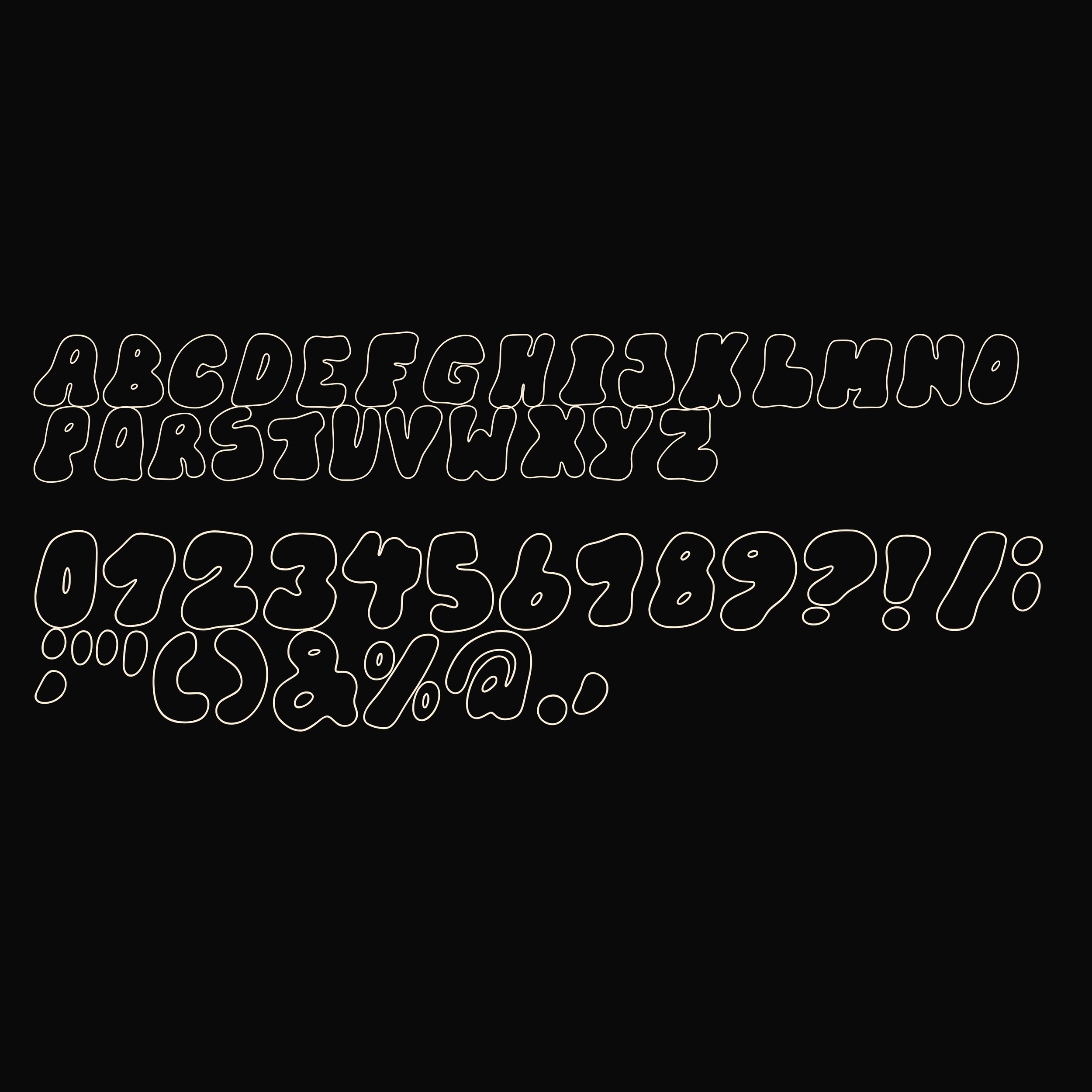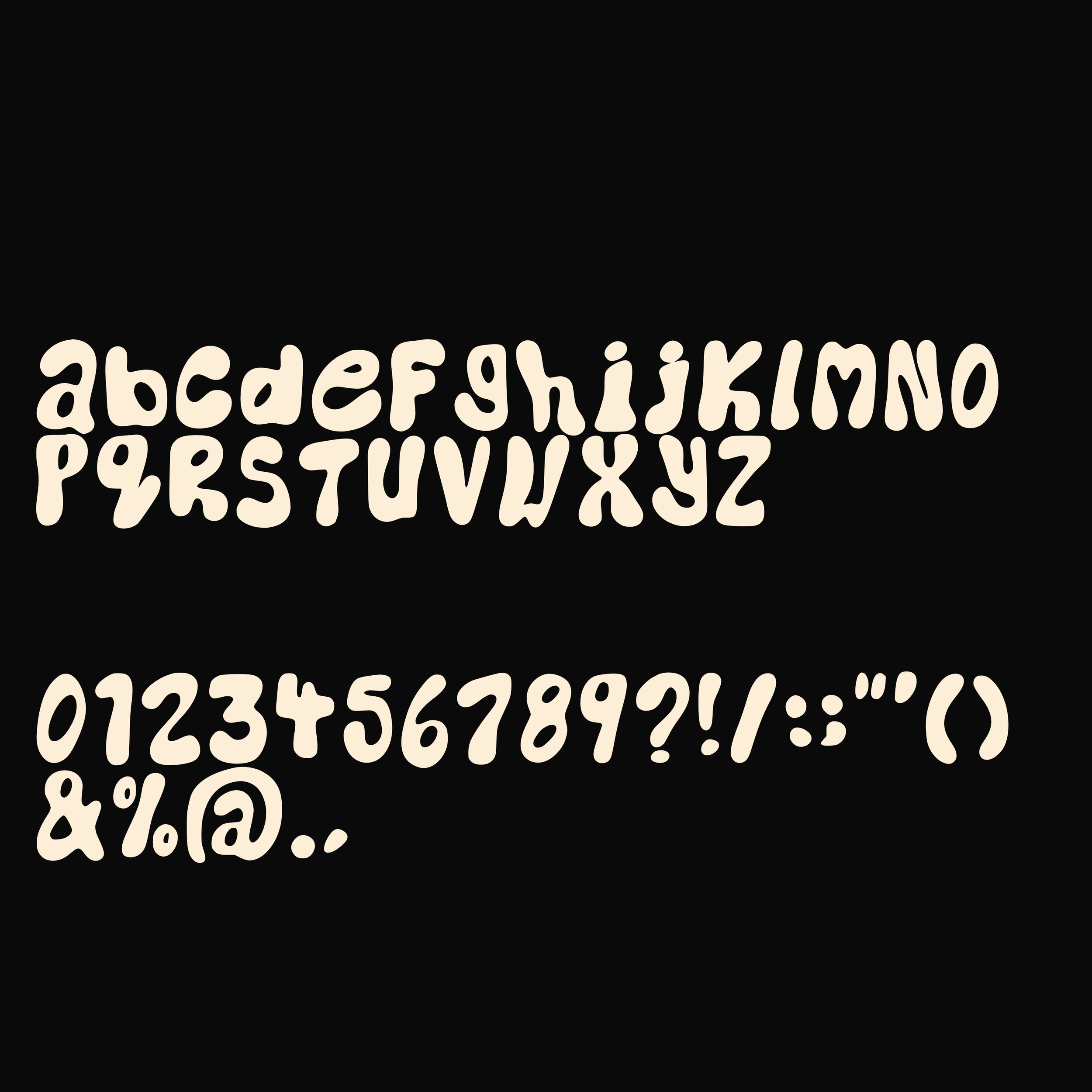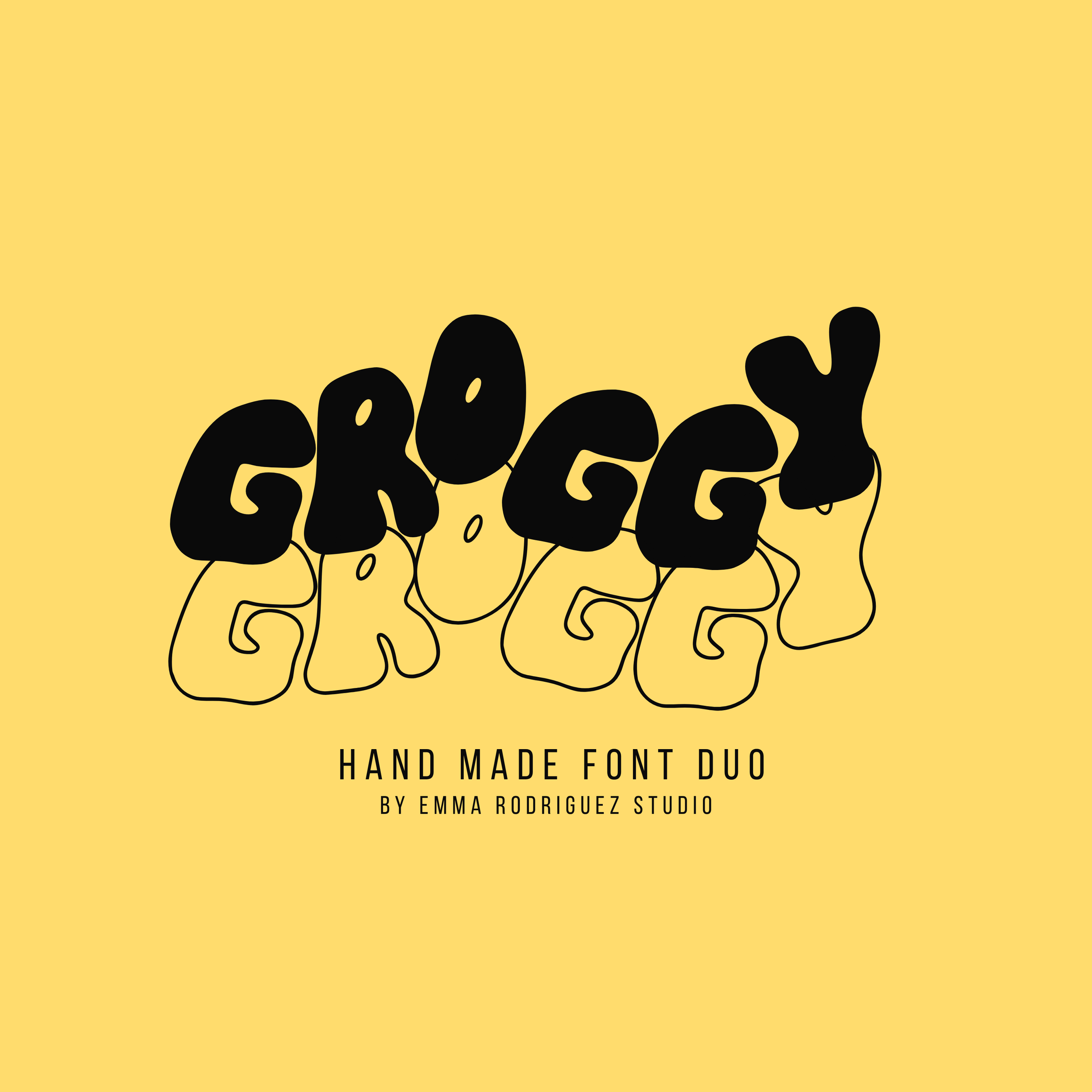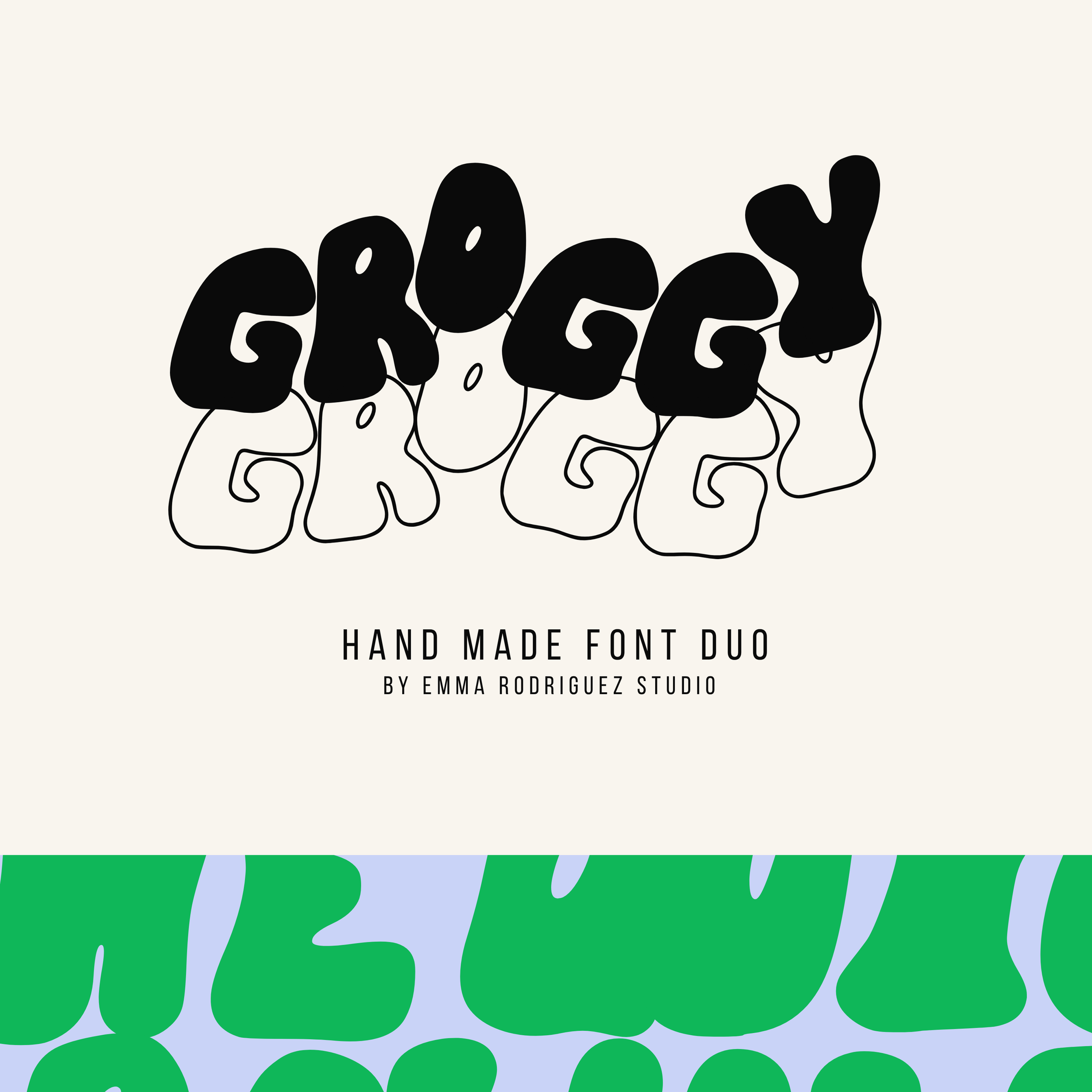
Groggy Font, Regular & Outlined Duo
Introducing Groggy Font, the perfect addition to your design toolkit! This fun font bundle includes both Regular and Outlined versions, making it a must-have for anyone looking to add a unique touch to their projects. The Groggy Font features a thick, bubbly graffiti style that is reminiscent of the Y2K era, perfect for adding a playful and nostalgic vibe to your designs.
Ideal for posters, social media graphics, branding, apparel, and more.